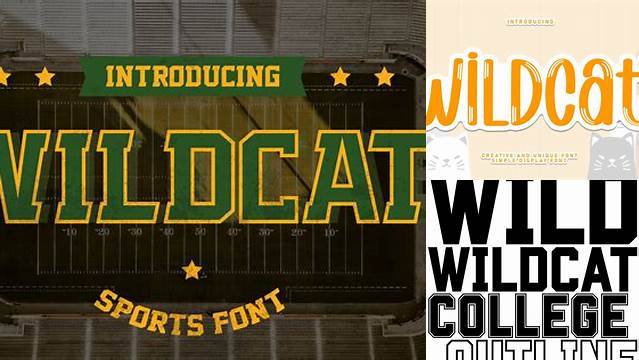
Wildcat College Font: Free Download & Usage Guide
Are you looking to add a touch of boldness and collegiate spirit to your projects? Look no further! The Wildcat College Font is a fantastic choice for anyone wanting to capture that classic university aesthetic. This article will dive deep into everything you need to know about this awesome font, including where to find a free TTF download, how to use it, and why it's such a popular choice for various design projects. So, let's get started and explore the world of Wildcat College Font!
What is Wildcat College Font?
When we talk about the Wildcat College Font, we're referring to a typeface that embodies the strong, confident, and traditional look often associated with university and sports branding. Think about the logos and merchandise you see representing college teams – that’s the kind of vibe this font gives off! Its blocky, often slightly slanted letters exude a sense of energy and classic collegiate style, making it perfect for projects where you want to convey a feeling of heritage and spirited competition.
This font family typically includes a variety of weights and styles, from regular to bold, and sometimes even italic versions. This versatility makes it suitable for a wide range of applications. Imagine using the bold version for a headline that really pops, or the regular weight for body text that maintains a strong yet readable presence. Whether you're designing a sports team logo, creating a poster for a school event, or even crafting personalized invitations, the Wildcat College Font can bring that authentic collegiate touch to your work.
One of the defining characteristics of this font is its ability to evoke a sense of nostalgia and tradition. It reminds us of classic university pennants, vintage sports jerseys, and the time-honored spirit of academic excellence and athletic achievement. This makes it a particularly effective choice for projects that aim to connect with audiences on an emotional level, tapping into their memories and feelings about their own school experiences or favorite sports teams. The robust and sturdy nature of the letters also conveys a sense of reliability and strength, qualities often associated with institutions of higher learning and competitive sports.
In addition to its aesthetic appeal, the Wildcat College Font is also valued for its legibility. The clear, well-defined letterforms ensure that your message is easily readable, even at smaller sizes. This is crucial for applications like team rosters, event schedules, and other informational materials where clarity is paramount. The font's bold presence doesn't compromise its functionality, making it a practical choice for both print and digital media.
Whether you're a graphic designer, a student, or just someone looking to add a touch of collegiate flair to your personal projects, the Wildcat College Font is a valuable tool to have in your font library. Its timeless style and versatility make it a reliable choice for a wide range of applications, and its ability to evoke feelings of tradition and spirited competition makes it a powerful way to connect with your audience.